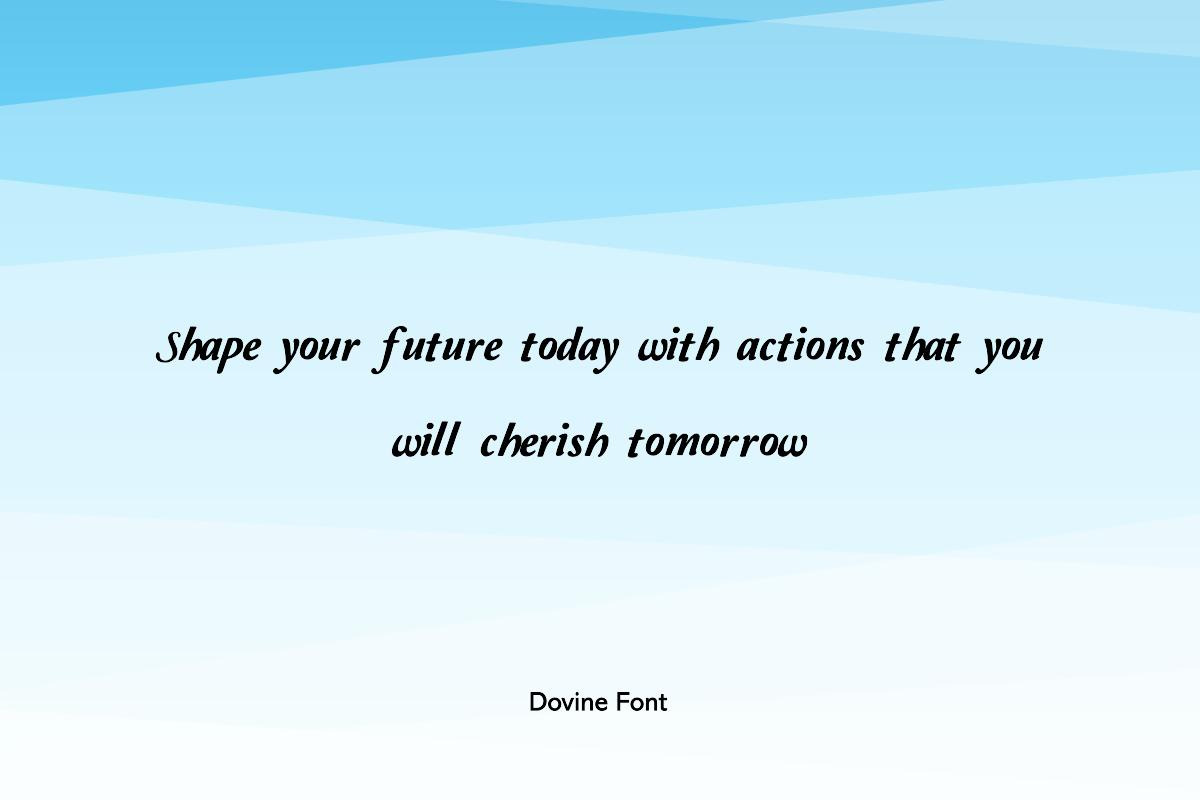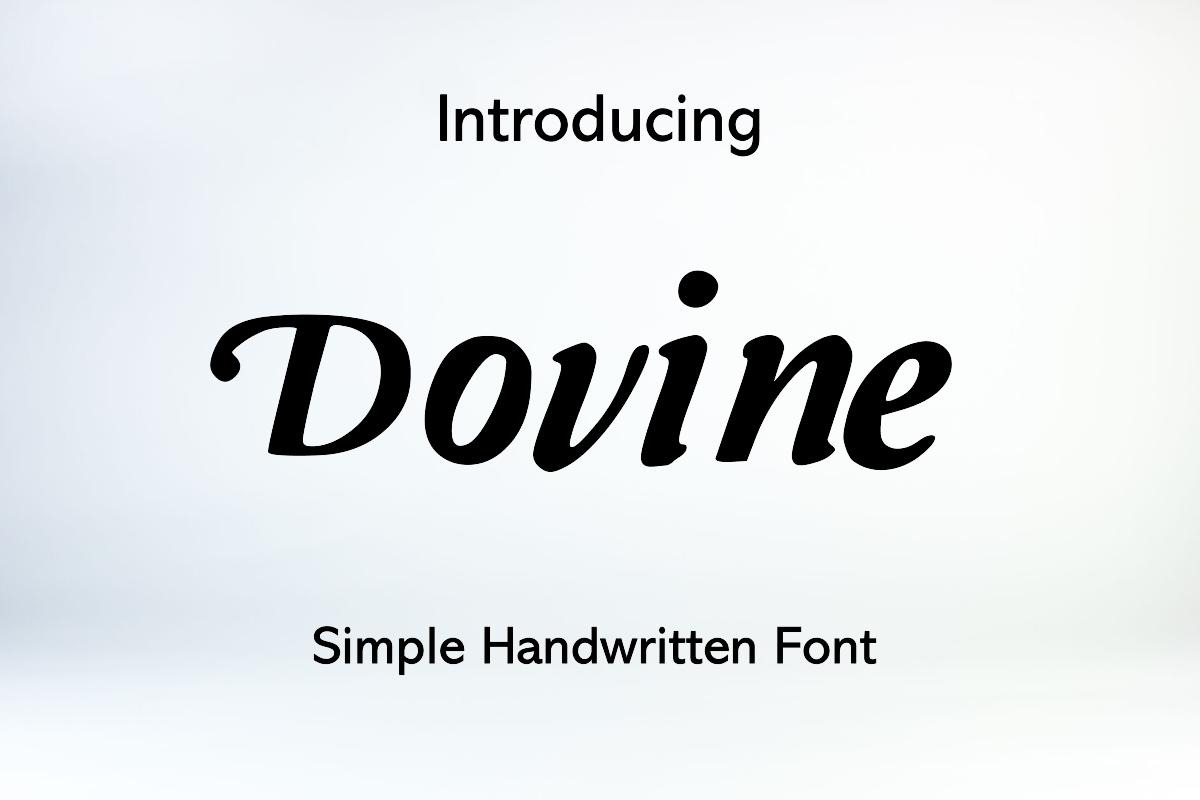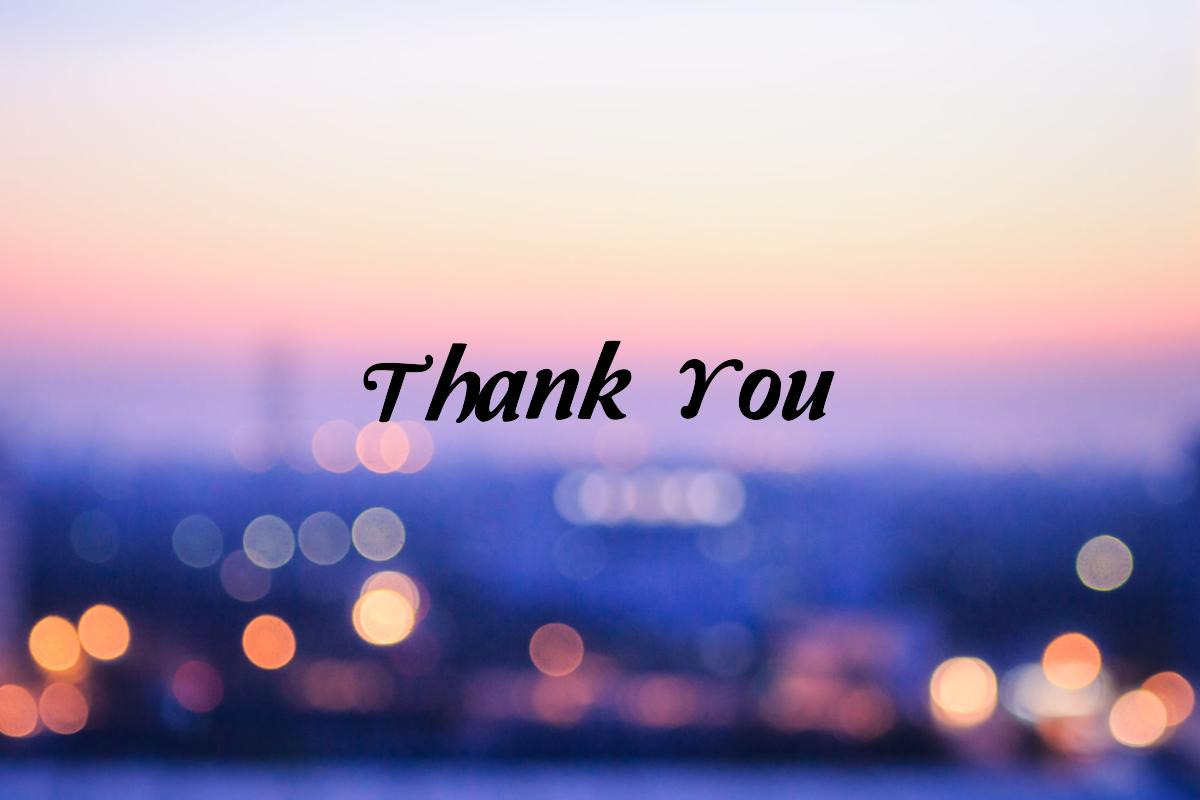
Dovine Modern Handwritten Font
'Dovine' – A Handwritten Font That Speaks to the Heart
Introducing Dovine, a handwritten font that exudes charm and character. With its fluid and expressive strokes, Dovine captures the essence of personal handwriting, bringing a heartfelt touch to every design. It's a font that doesn't just communicate words; it communicates feelings.
Ideal for:
- Heartfelt Invitations: Make your guests feel special with invitations that are as personal as handwritten notes.
- Authentic Branding: Give your brand a genuine voice that resonates with authenticity and trust.
- Memorable Social Media Posts: Create posts that stand out and speak directly to the hearts of your followers.
- Personal Projects: Whether it's journaling or scrapbooking, Dovine adds a personal signature to your memories.
Dovine is more than just a font; it's a medium for expression, a way to add a personal and intimate touch to your digital presence.